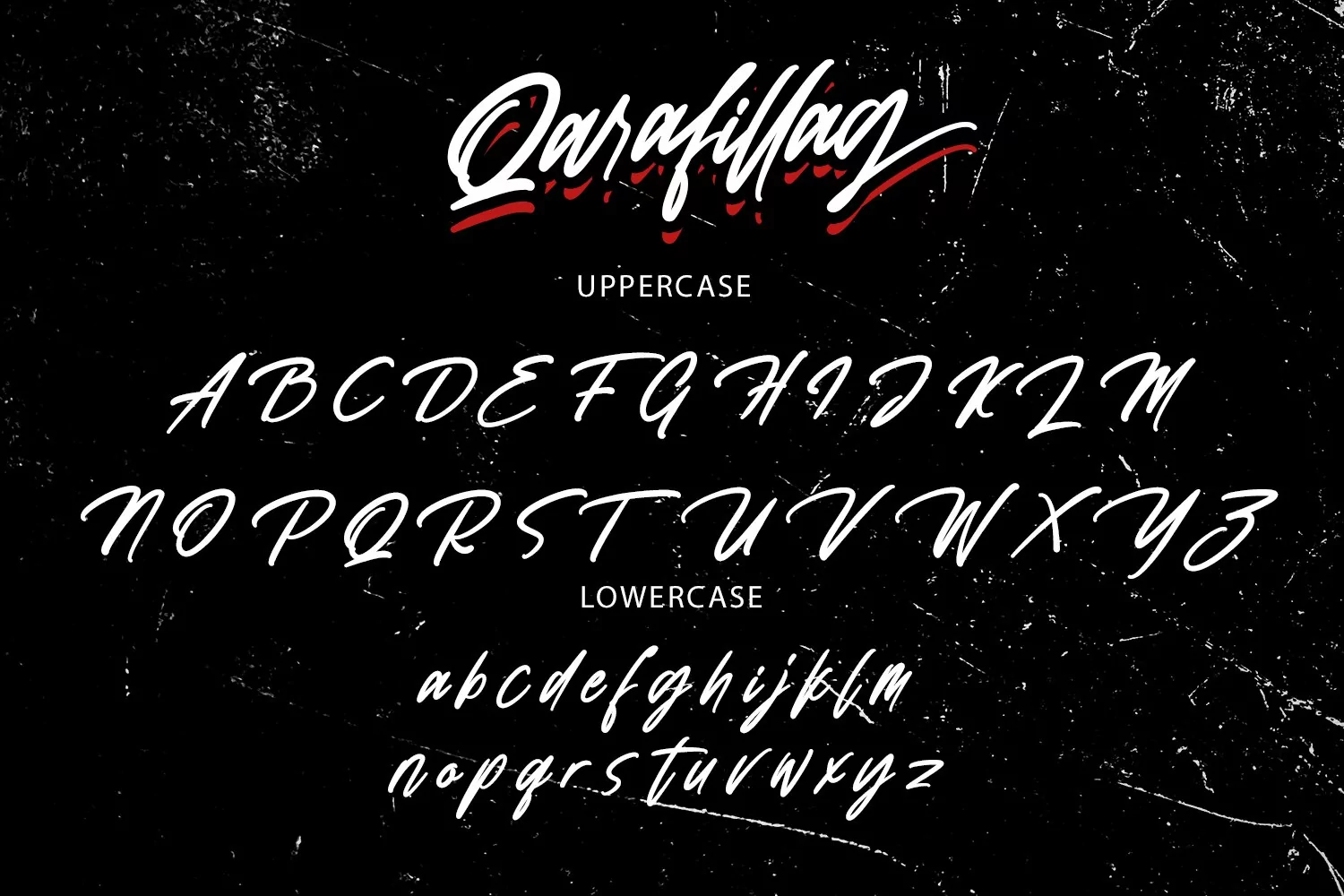
Qarafillag Script Authentic Handcrafted Font is a simply casual signature script font. With regular mono-line stroke, slant and fun character with a bit of ligatures and a bit much ligatures in Qarafillag Alt. To give you an extra creative work. Qarafillag font support multilingual more than 100+ language. This font is good for logo design, Social media, Movie Titles, Books Titles, a short text even a long text letter and good for your secondary text font with Script. Make a stunning work with Qarafillag font.